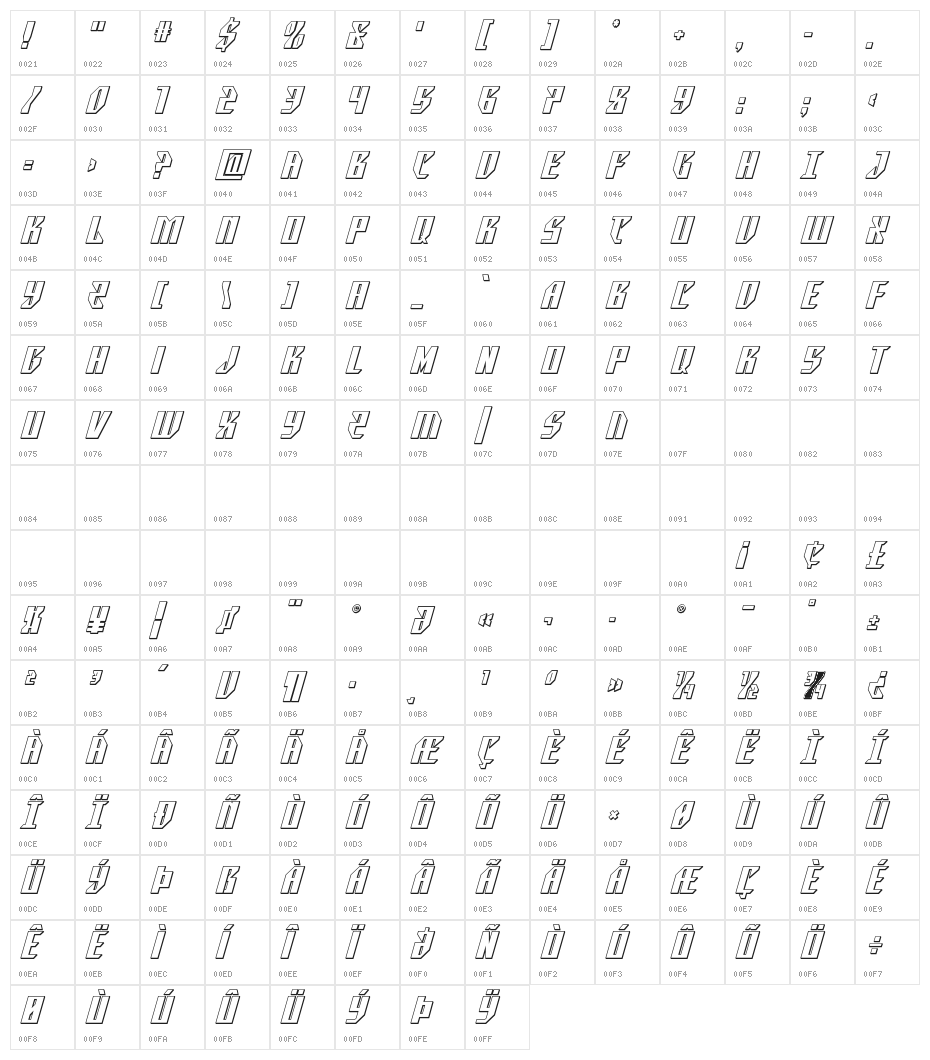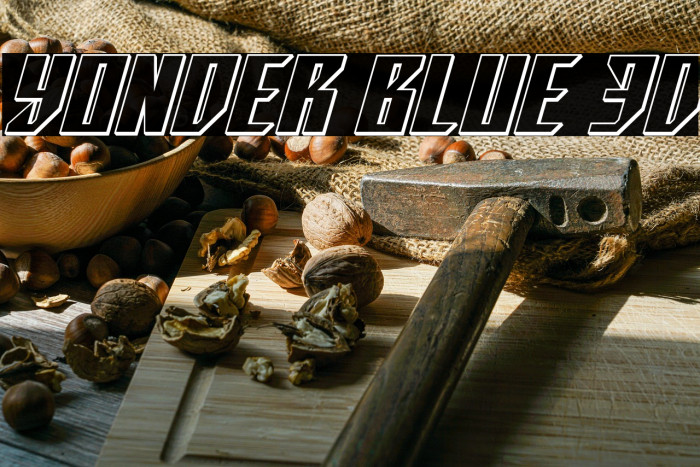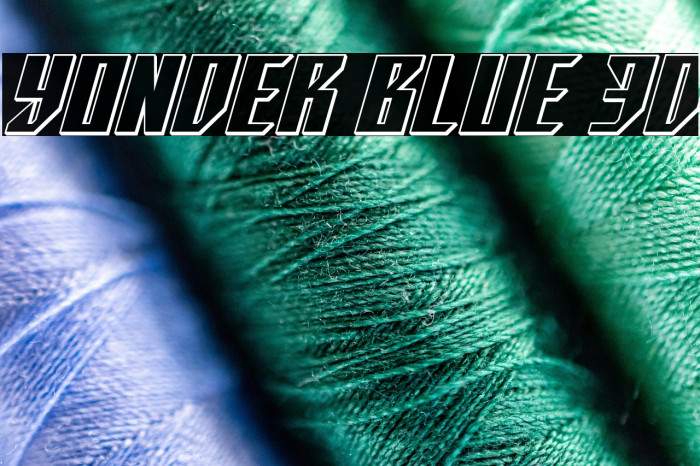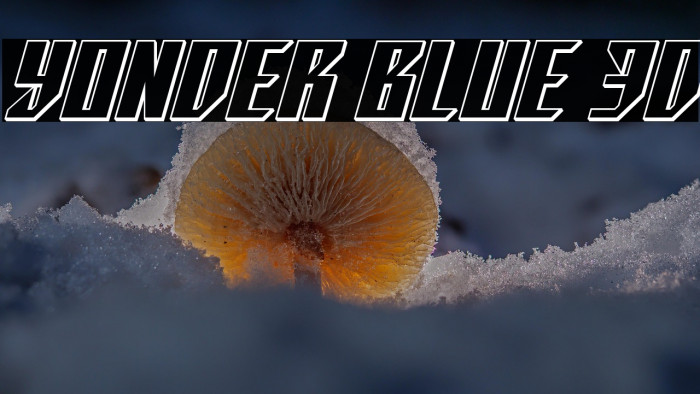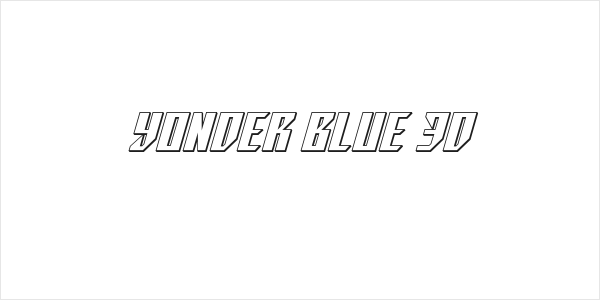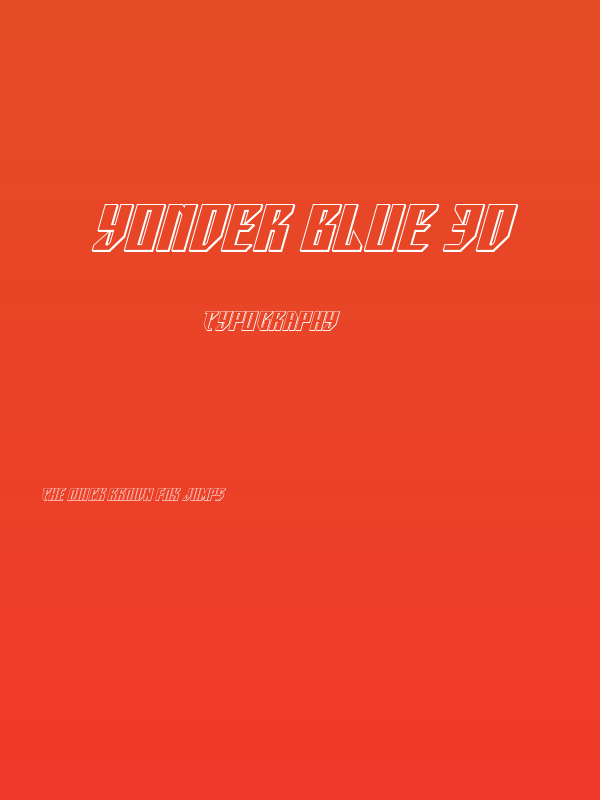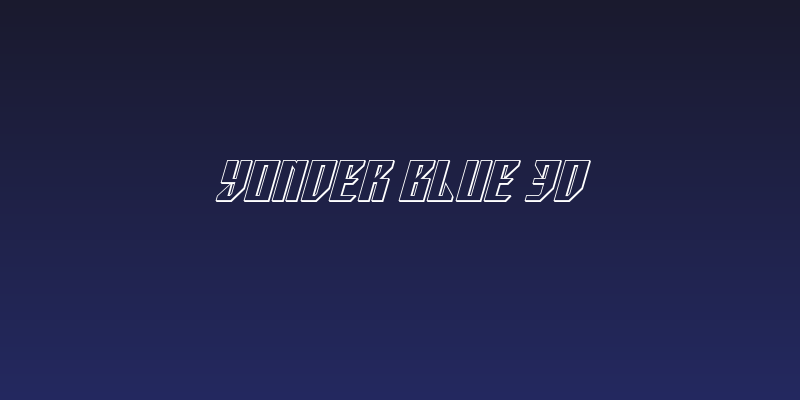
Yonder Blue 3D Font
Yonder Blue 3D Description
This font features a bold, angular design with a three-dimensional effect that gives it a dynamic and futuristic appearance. The characters are outlined, creating a sense of depth and movement. The uppercase and lowercase letters maintain a consistent geometric style, with sharp edges and diagonal lines that suggest speed and modernity. The numbers and special characters follow the same design principles, ensuring uniformity across all glyphs. This font is eye-catching and ideal for projects that require a strong visual impact.
| Proposed Projects | Ideal for sci-fi themed posters, video game titles, technology branding, and any project needing a modern, impactful typeface. |